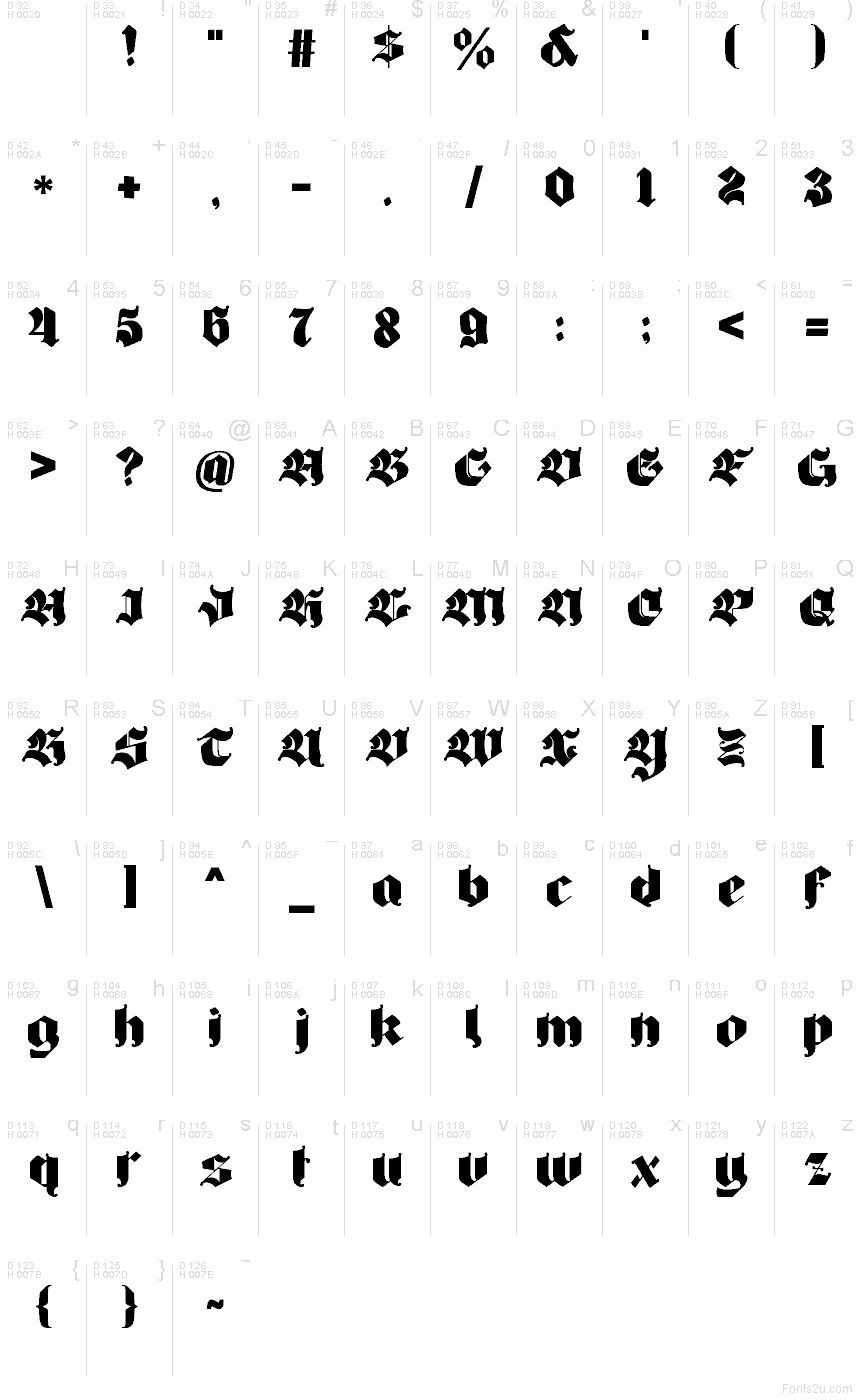
Bigfat gothic Regular
Bigfat Gothic font by Alit Design is a free modern gothic blackletter typeface that hits like a thunderclap. The letters are thick, inky, and tightly sculpted, with sharp angles that feel cut from metal and broad strokes that read instantly from a distance. It has that classic old-world blackletter bite, but with a heavier, more exaggerated weight that pushes it into bold, contemporary territory—great when you need words to slam onto the page and stay there.
Using Bigfat Gothic, your text stops being background and becomes the main act. This free font shines on metal and hip-hop album covers, streetwear logos, event posters, tattoo-inspired branding, gaming or esports graphics, and bold packaging that needs serious attitude. Keep it big and spacious so the dense shapes can breathe, and pair it with a clean geometric sans serif for small supporting text to let the heavy gothic forms really roar.